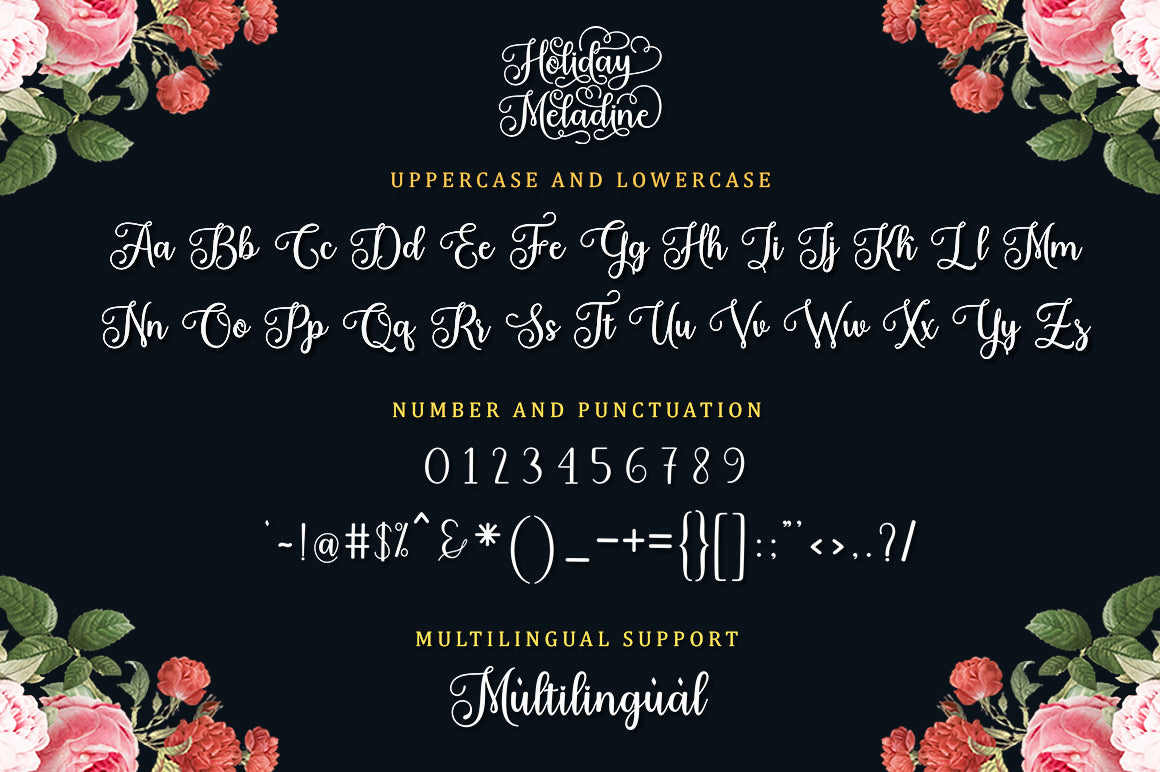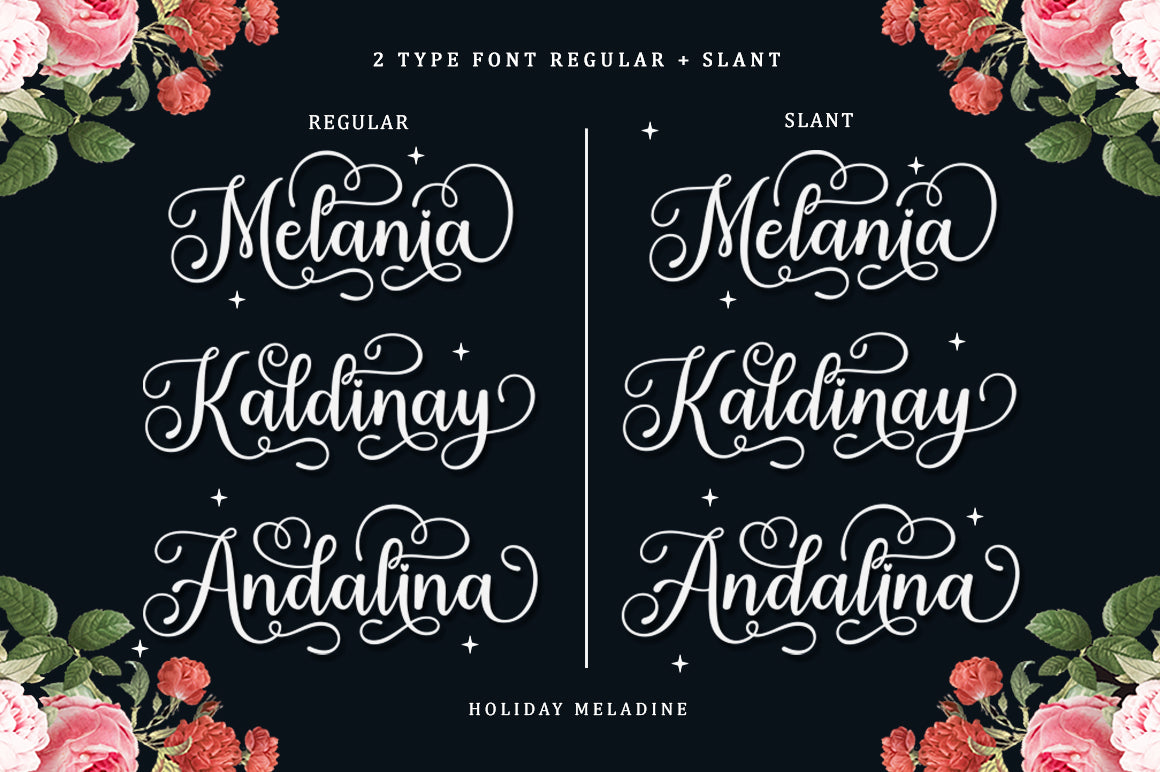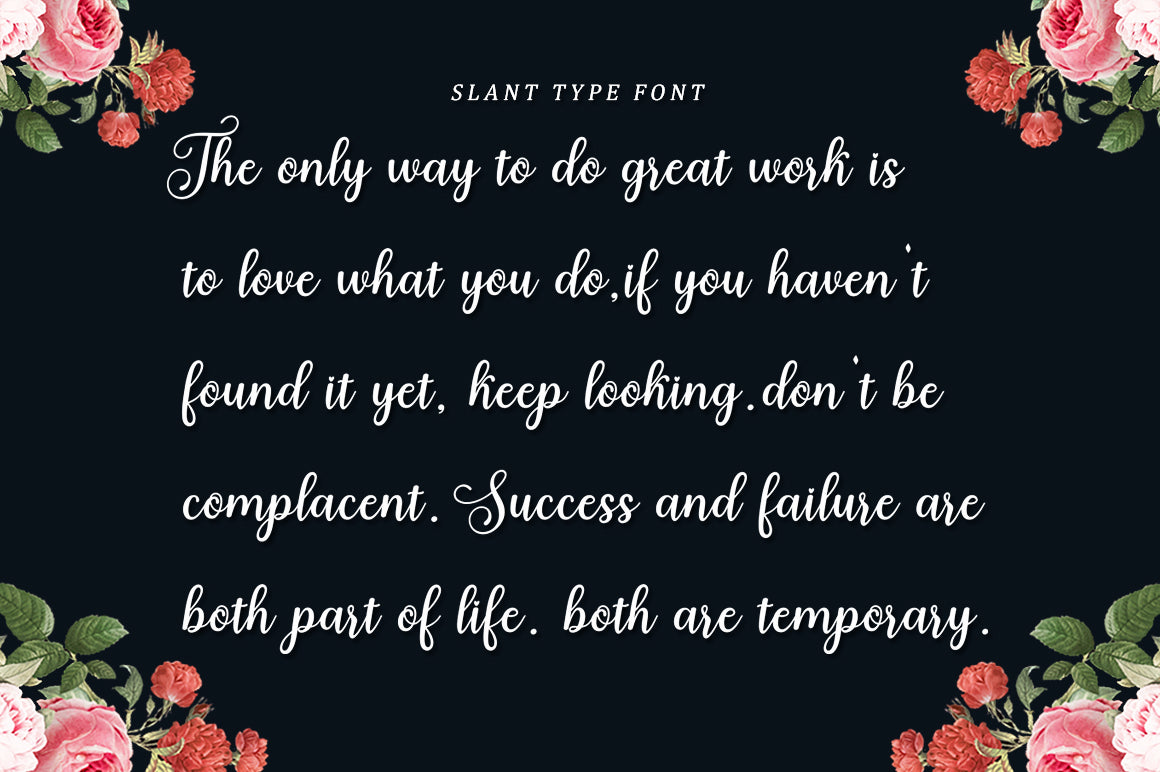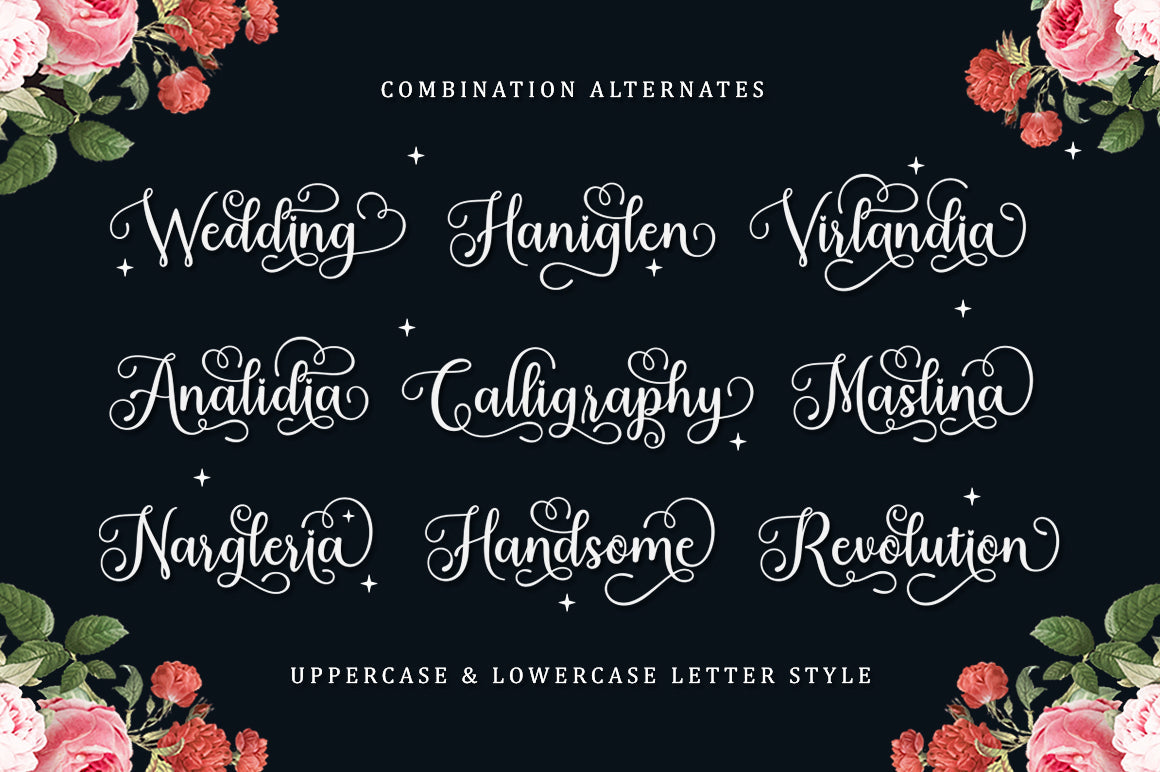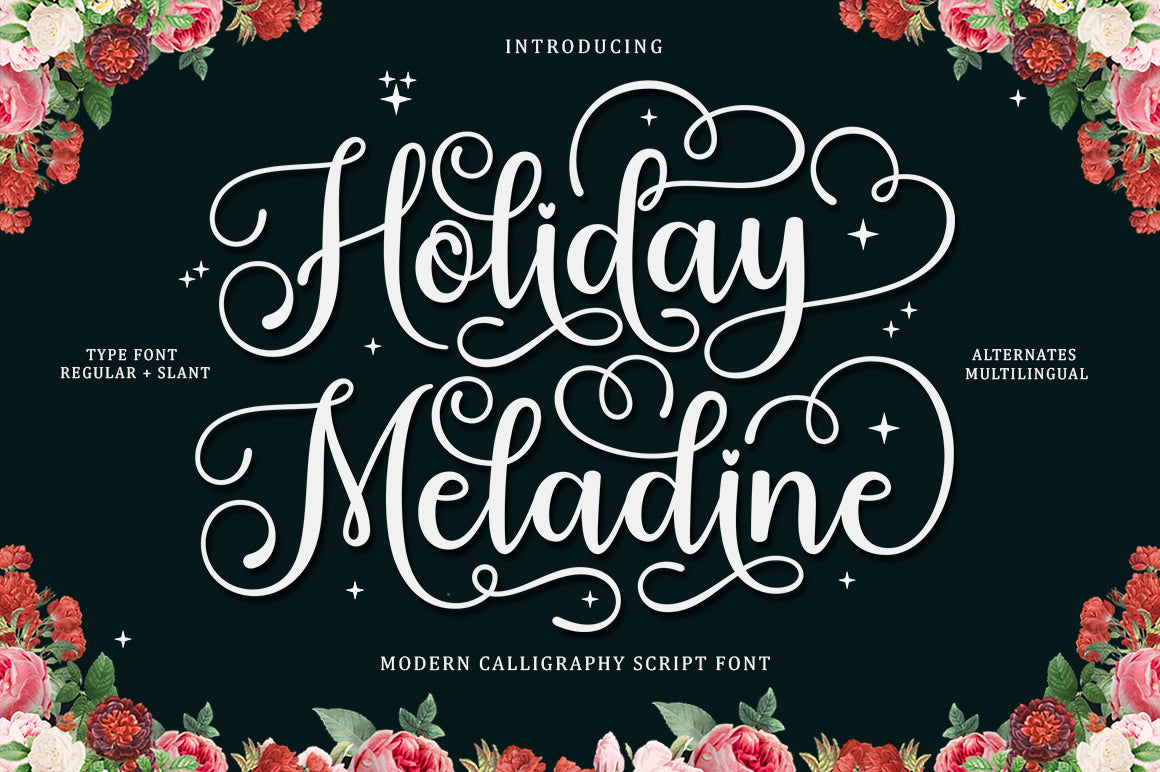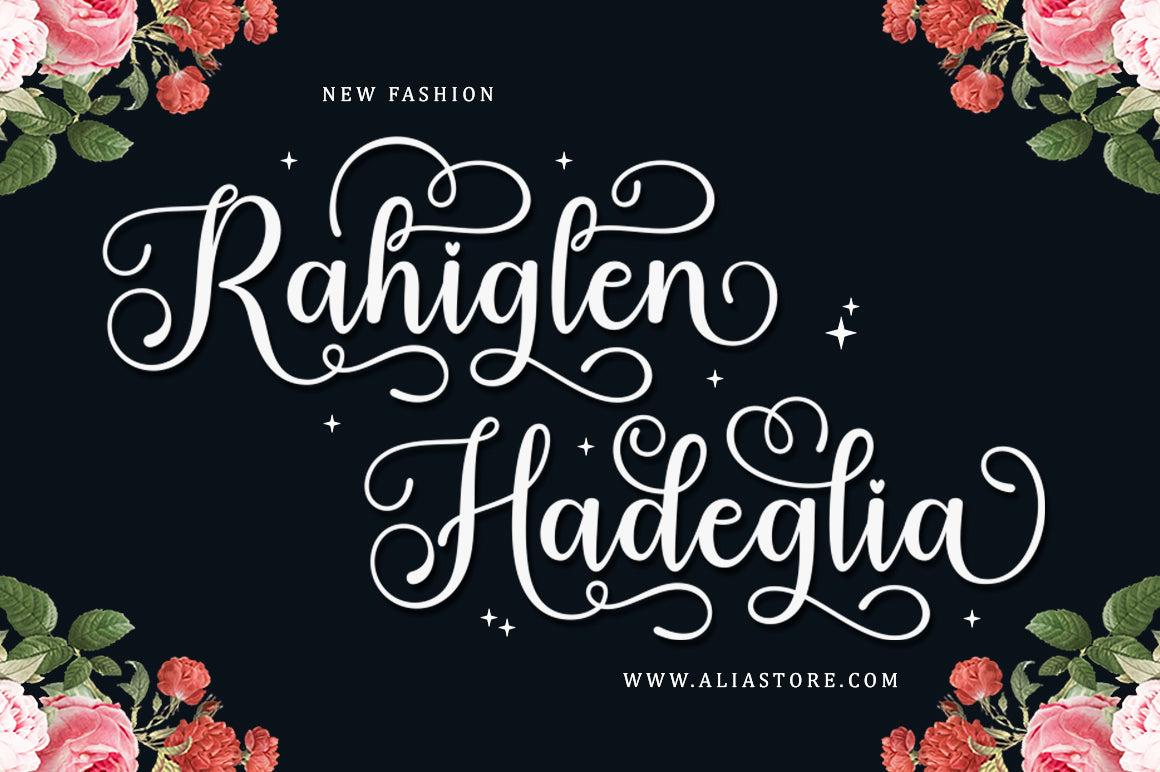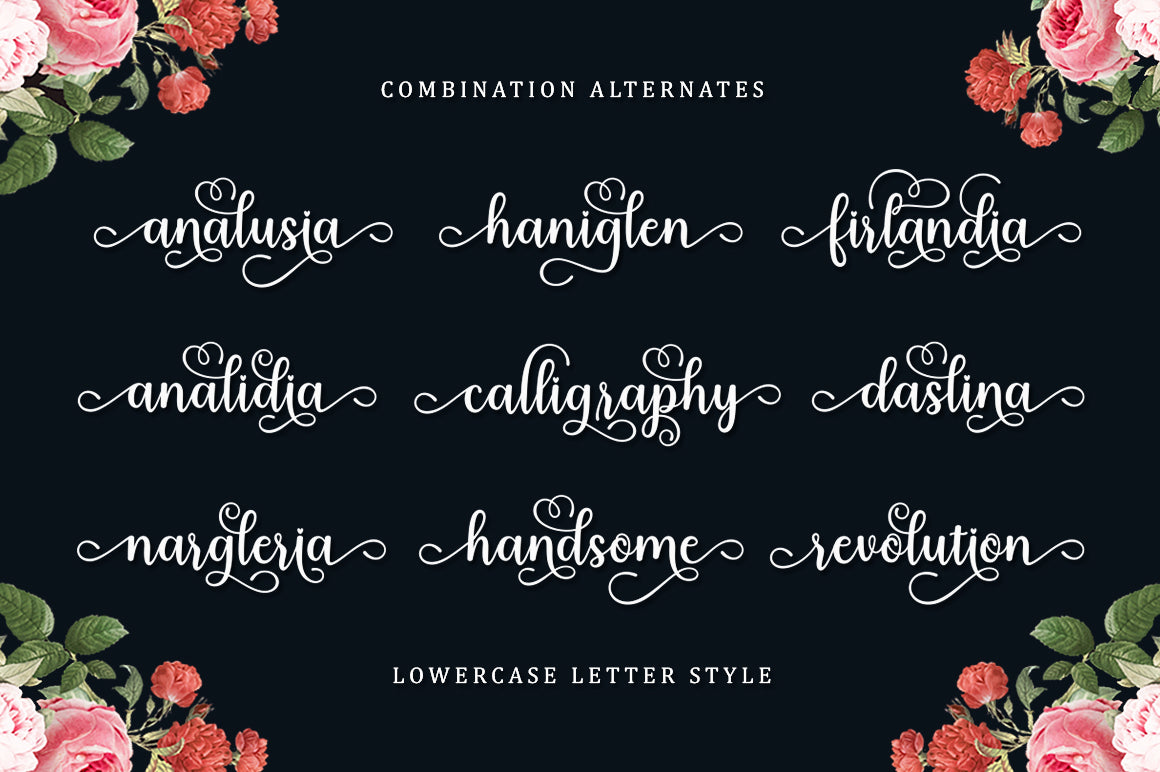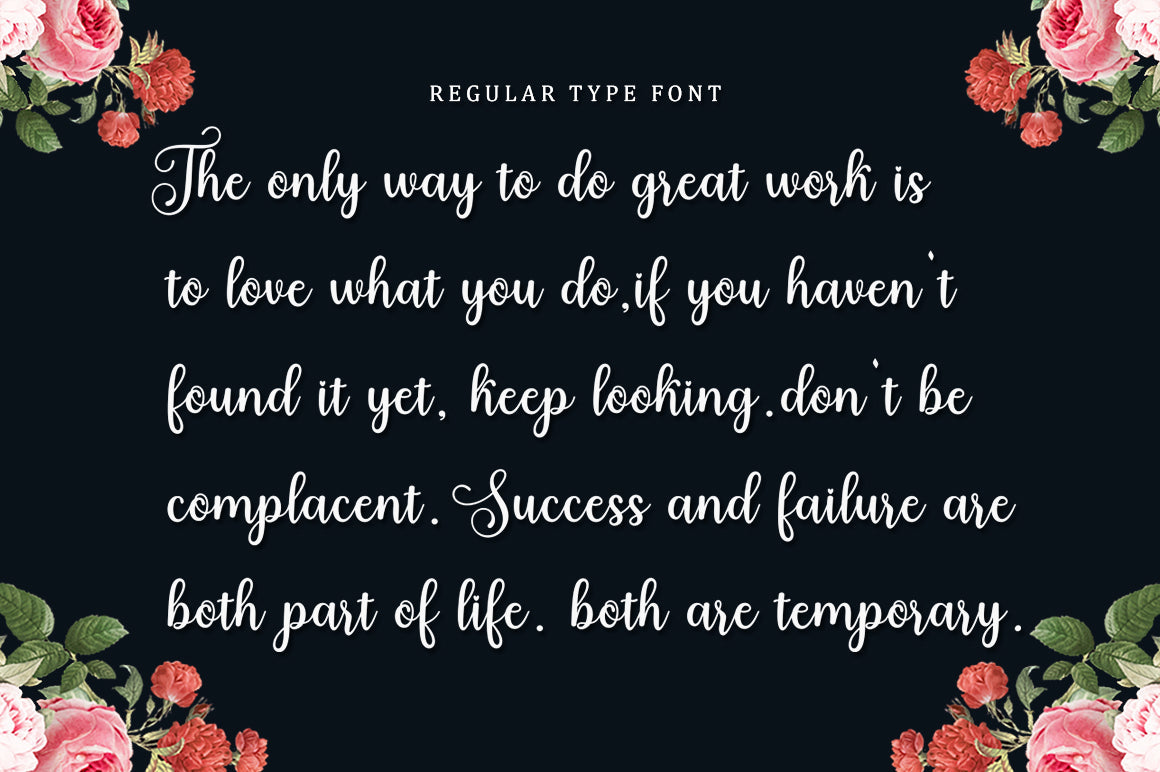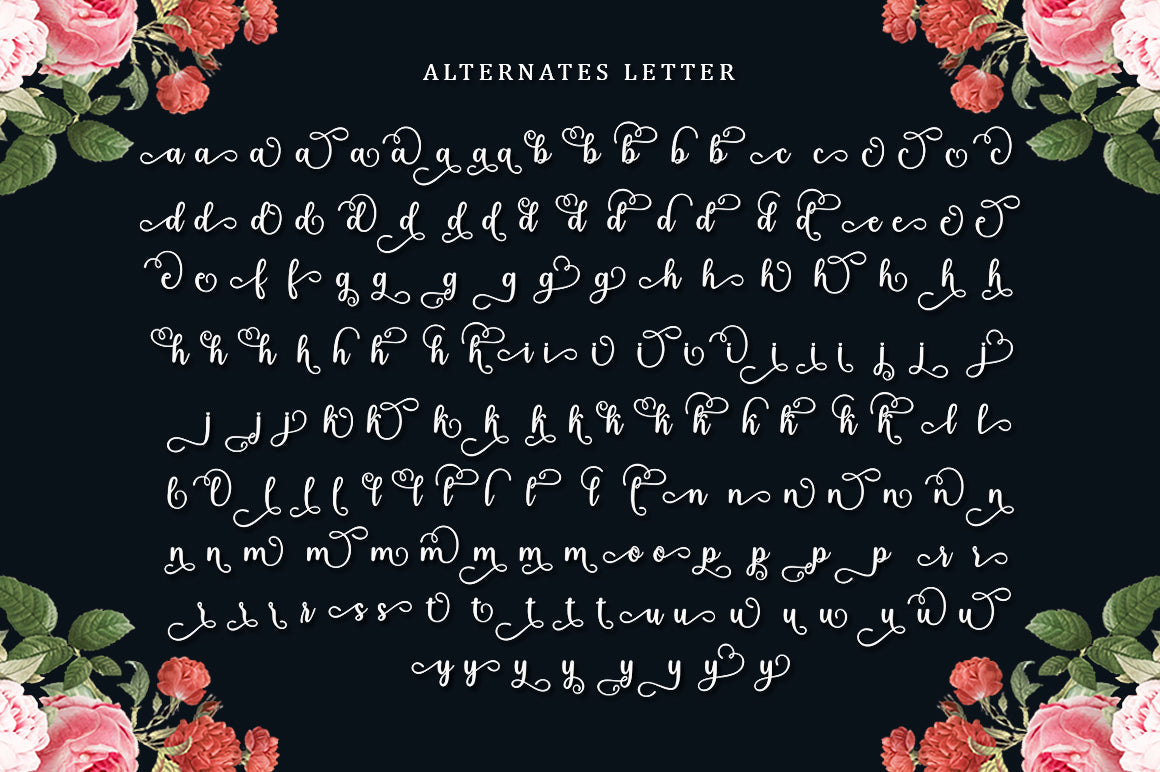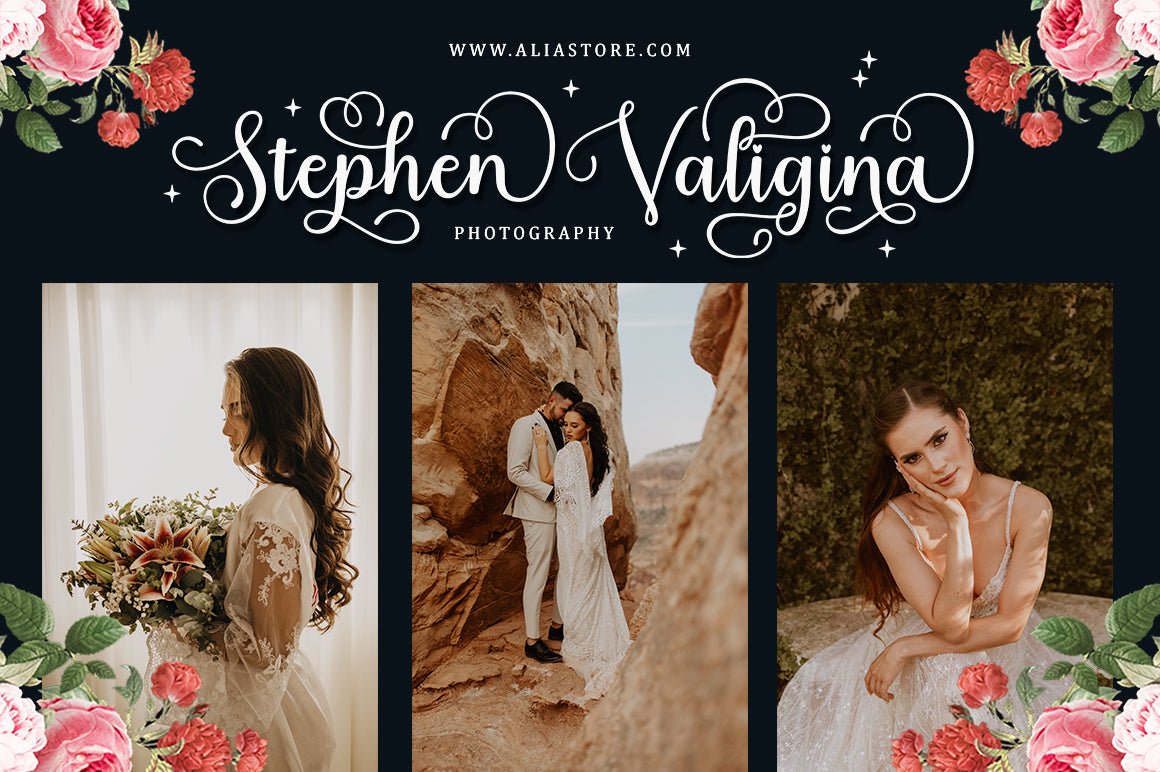
Holiday Meladine – Script Font
About Holiday Meladine – Script Font
Holiday Meladine is a modern script font that features a classic and elegant touch. Holiday Meladines are attractive because they are sleek, clean, feminine, sensual, glamorous, simple and very easy to read, thanks to their many fancy letter joints. I also offer a decent number of stylistic alternatives for some of the letters. Classic style is very suitable to be applied in various formal forms such as invitations, labels, restaurant menus, logos, fashion, make up, stationery, novels, magazines, books, greeting/wedding cards, packaging, labels or all kinds of advertising purposes. . . . . . . . Files include: • Holiday Meladine Regular • Holiday Meladine Slant Contains full set: -Has 2 font models, Regular and Slant -Uppercase -Lowercase -Alternative -Ligatures -Punctuation -Number -Multilingual support. need help or have questions let me know. I’m happy to help. Thanks & Congratulations on the Design!